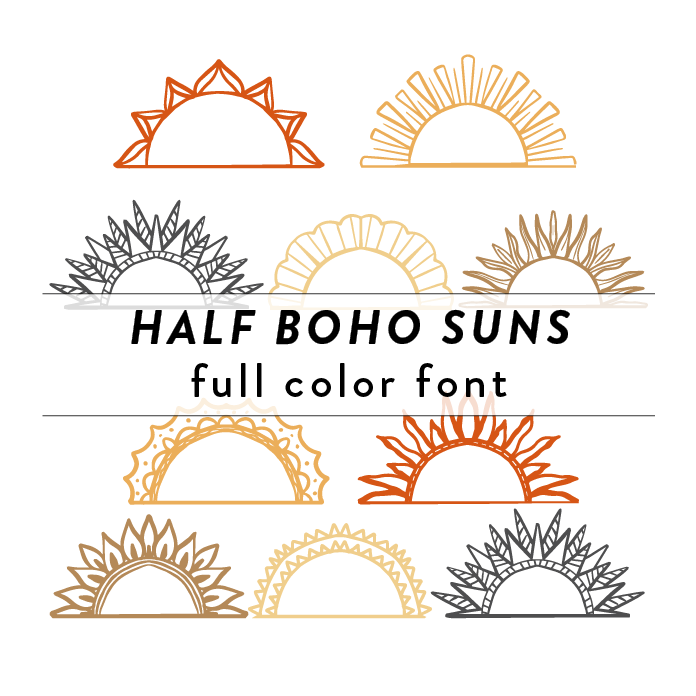
Half Boho Suns Full Color Font is a whimsical and vibrant font design that features intricate bohemian-inspired sun motifs. With a playful and summery vibe, this font is perfect for adding a decorative touch to various projects. Its unique flourishes and shapes make it stand out, making it ideal for invitations, home decor, and other design projects where a fun and colorful aesthetic is desired. This font is a OTF craft font that will appear in color only when used with the silhouette software.